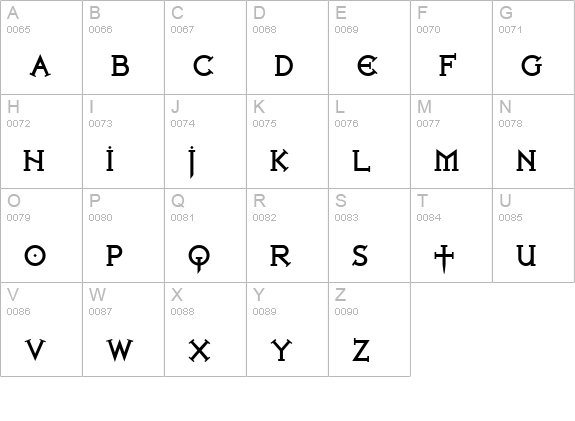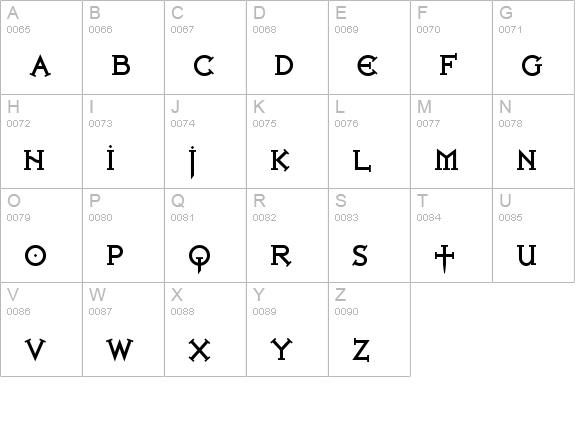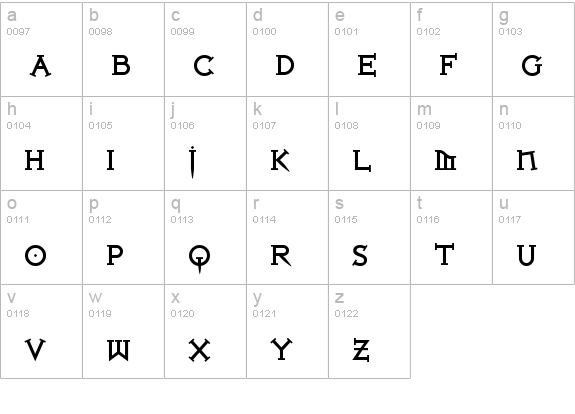
Iron League Black is a maximum-weight, dramatic variant in the Iron typeface family \xE2\x80\x94 well suited to maximum-impact headlines, posters, and packaging.
Iron League Black font is a bold and impactful typeface that exudes strength and power. Its sleek and modern design makes it perfect for a variety of applications, from logo design to headlines and posters. With its commanding presence, this font demands attention and leaves a lasting impression. What sets Iron League Black font apart is that it is not only visually striking, but it is also freely available to download at FontsMarket.com. This means that you can add this incredible font to your collection without having to spend a dime. Whether you are a professional graphic designer or a hobbyist, having access to high-quality fonts can make a world of difference in your projects. The versatility of Iron League Black font allows you to experiment and create unique designs that stand out from the crowd. Its strong and bold letters make a bold statement, while its clean lines ensure legibility even at smaller sizes. The character set includes uppercase letters, numbers, and a selection of special characters, providing everything you need to bring your vision to life. Whether you are working on a branding project, a website design, or simply want to add a touch of elegance to your personal creations, Iron League Black font is a fantastic choice. Its timeless appeal and modern aesthetic make it suitable for a wide range of styles and purposes. Download Iron League Black font today at FontsMarket.com and unleash your creativity. With this free font in your arsenal, you'll have the power to create eye-catching designs that leave a lasting impression. Don't miss out on this opportunity to enhance your projects with a high-quality typeface that is both visually stunning and freely available for download.